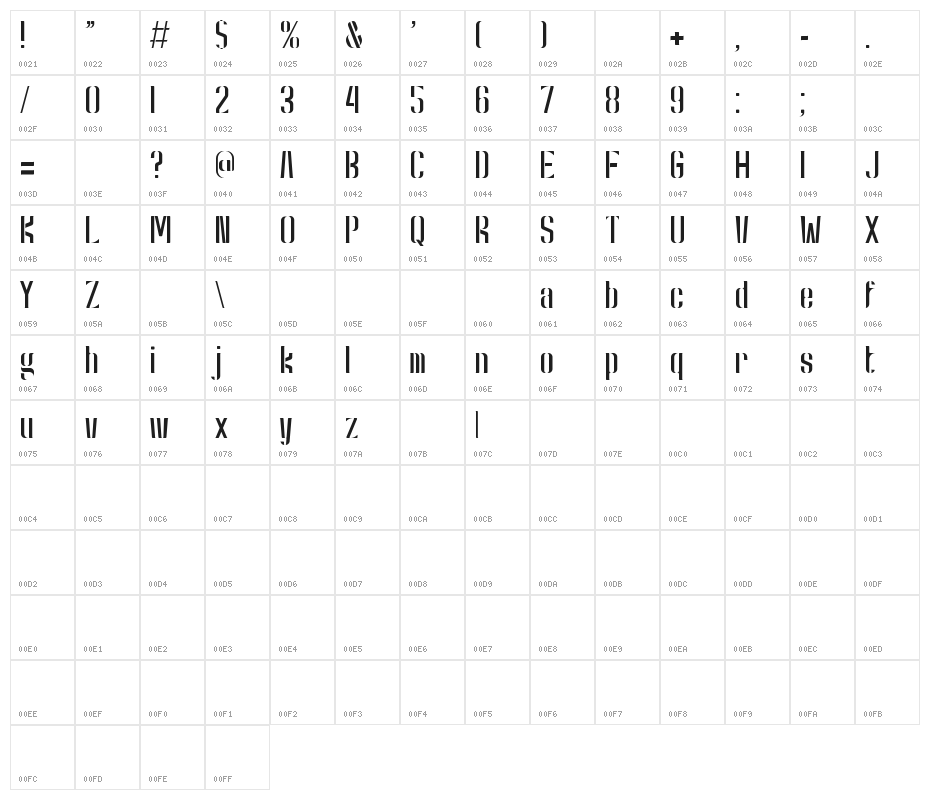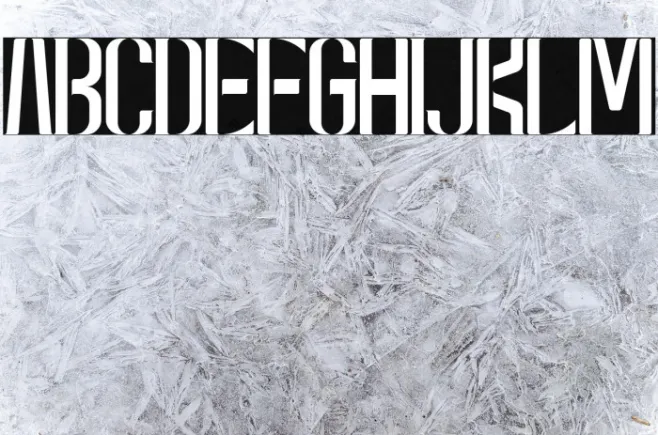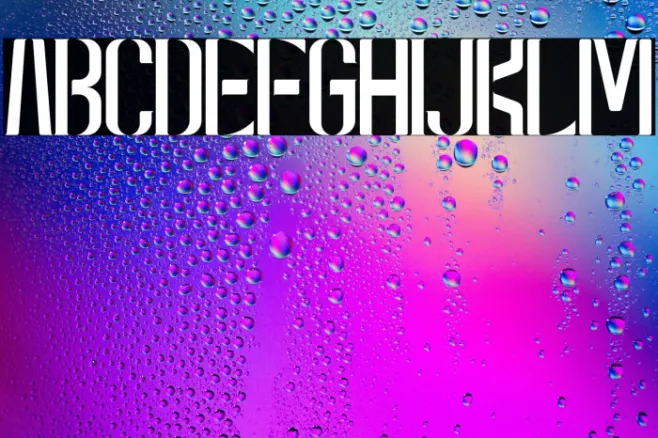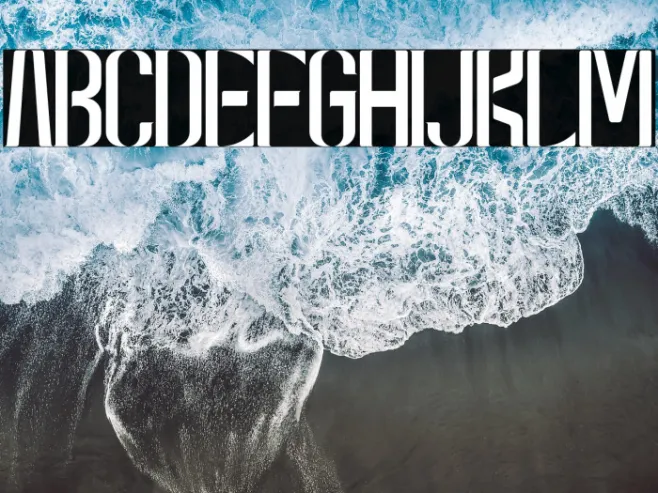
Kong Font
Kong Description
This font features a bold and striking design with high contrast between thick and thin strokes, creating a dramatic and eye-catching appearance. The characters are uniquely styled with sharp angles and geometric elements, giving it a modern and avant-garde feel. The uppercase and lowercase letters maintain a consistent aesthetic, while the numerals and special characters complement the overall design. This font's distinct style makes it suitable for projects that require a strong visual impact.
| Proposed Projects | Ideal for branding, poster design, headlines, and any project that requires a bold statement. |